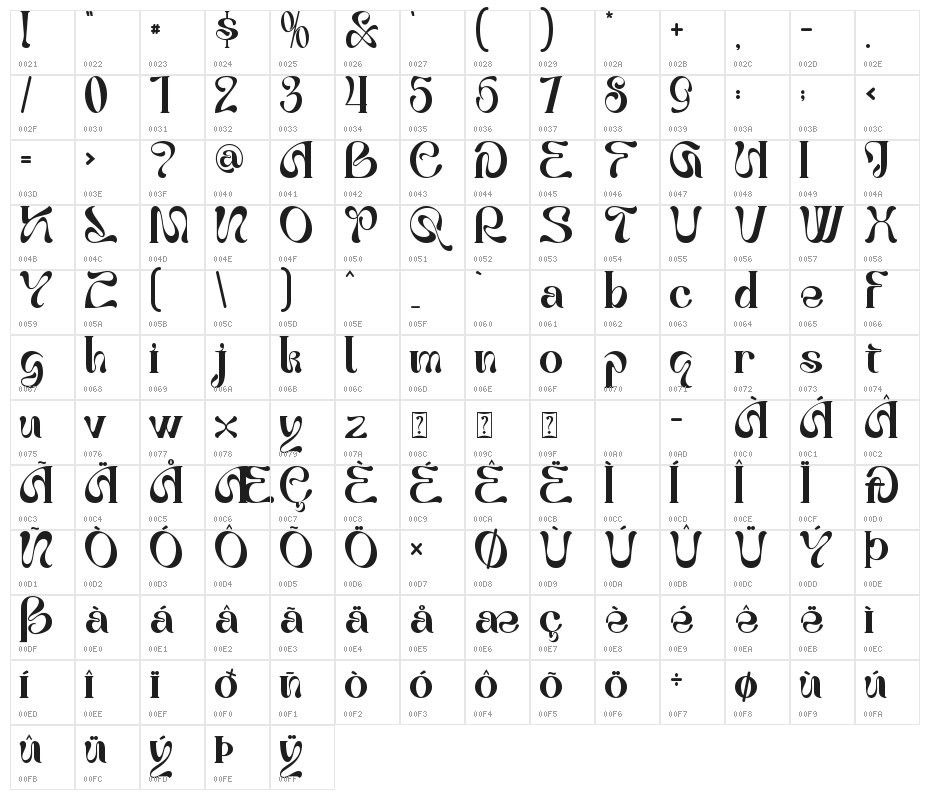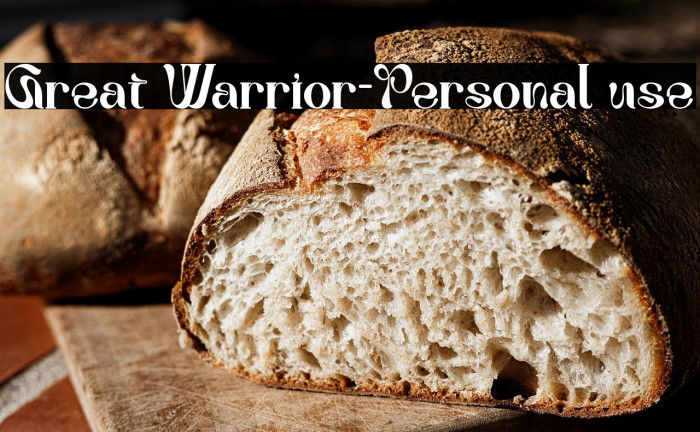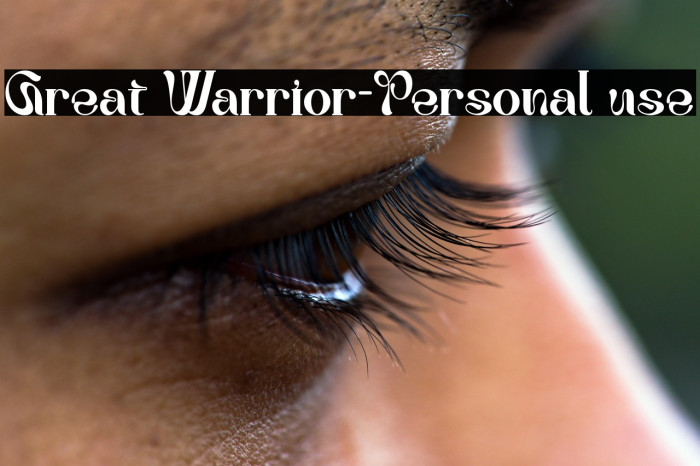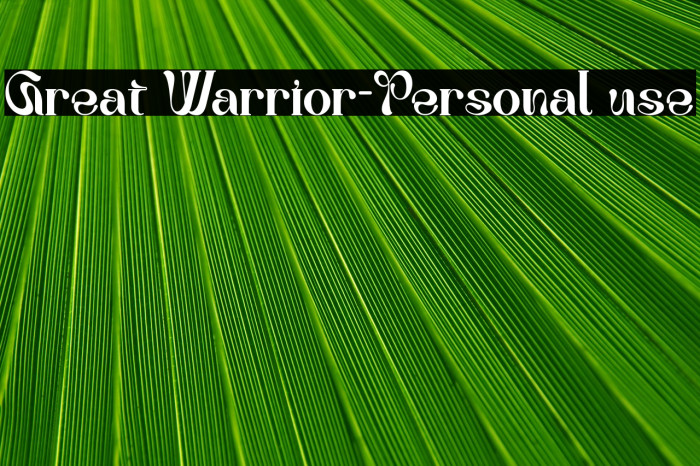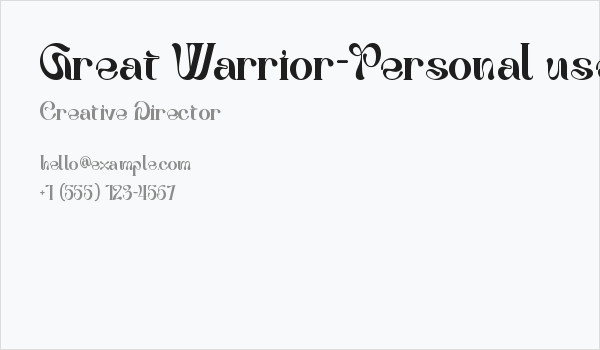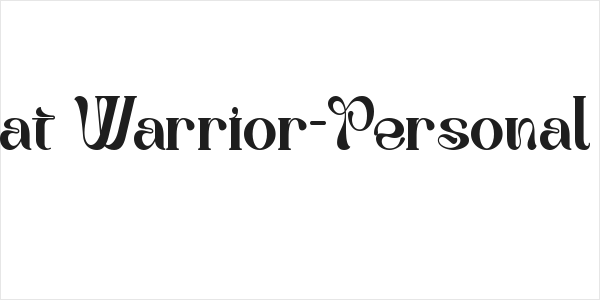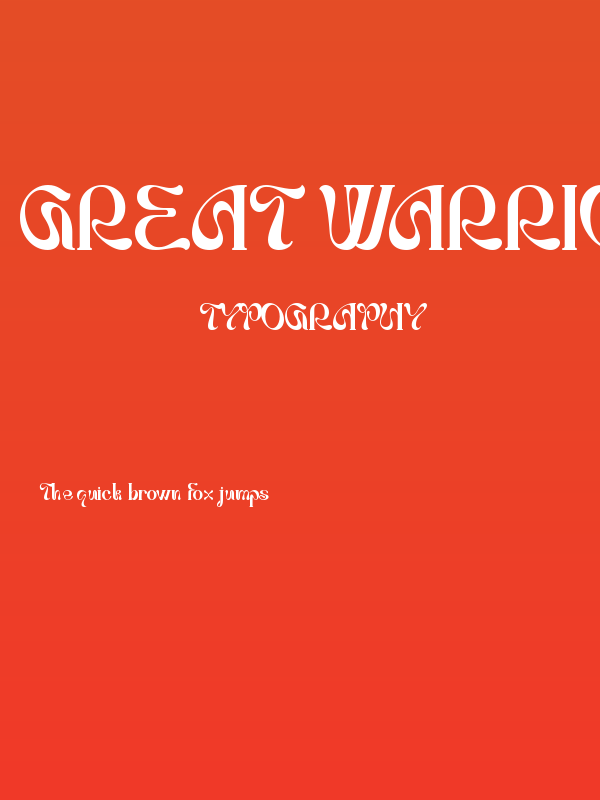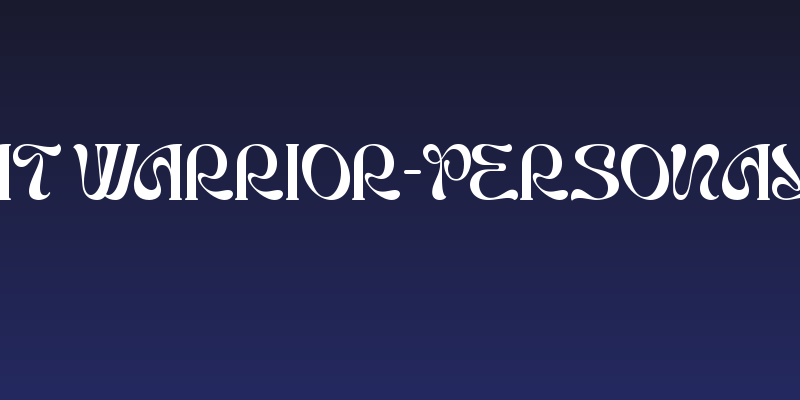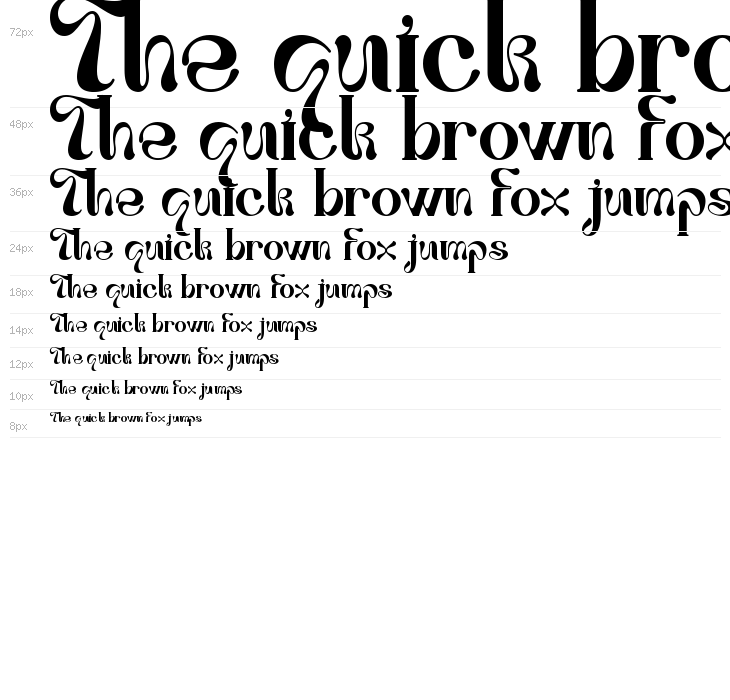
Great Warrior-Personal use Font
Great Warrior-Personal use Description
This font features a bold and decorative style with a unique blend of curves and sharp edges, creating a dynamic and eye-catching appearance. The uppercase letters are particularly striking, with intricate details and a sense of movement that adds a dramatic flair. The lowercase letters maintain a consistent style, offering a harmonious balance with the uppercase. The numerals are equally bold, with a distinctive design that complements the overall aesthetic. Special characters are creatively designed, adding to the font's versatility. This font's artistic and bold nature makes it ideal for projects that require a strong visual impact.
| Proposed Projects | Ideal for posters, logos, branding, and any project requiring a strong visual impact. |